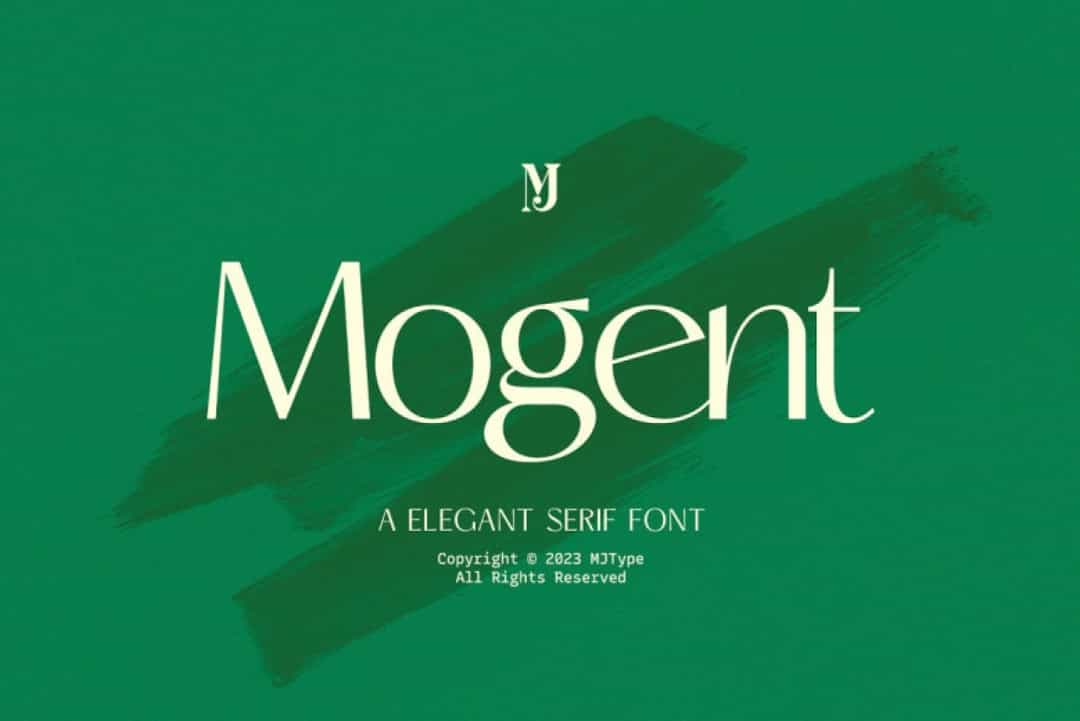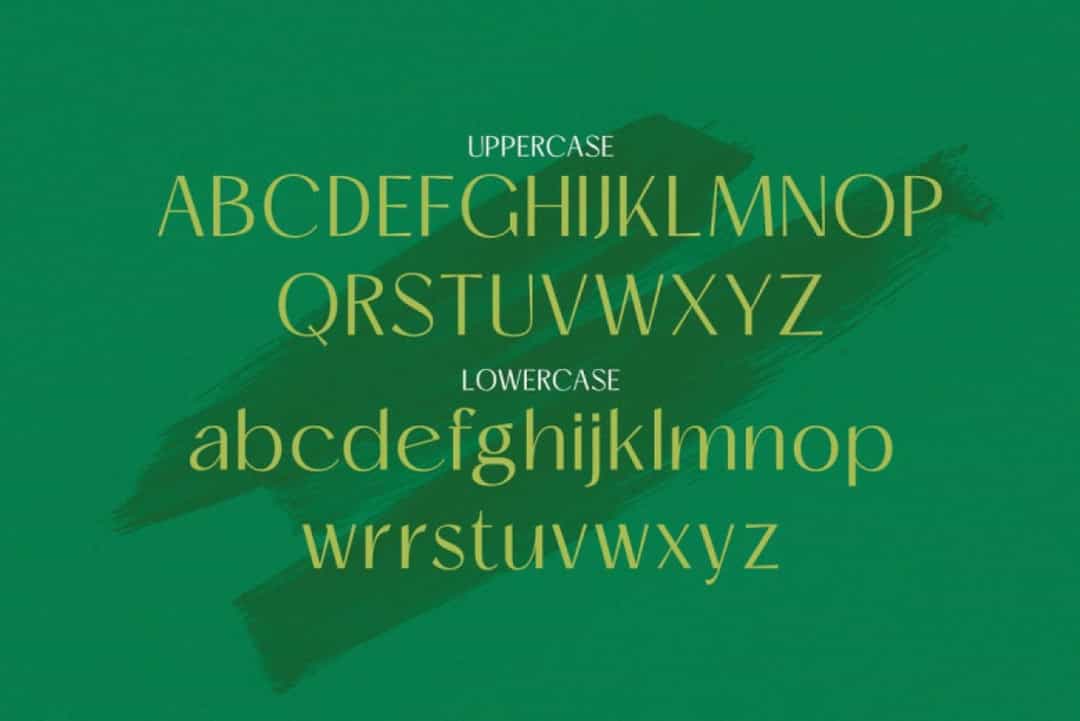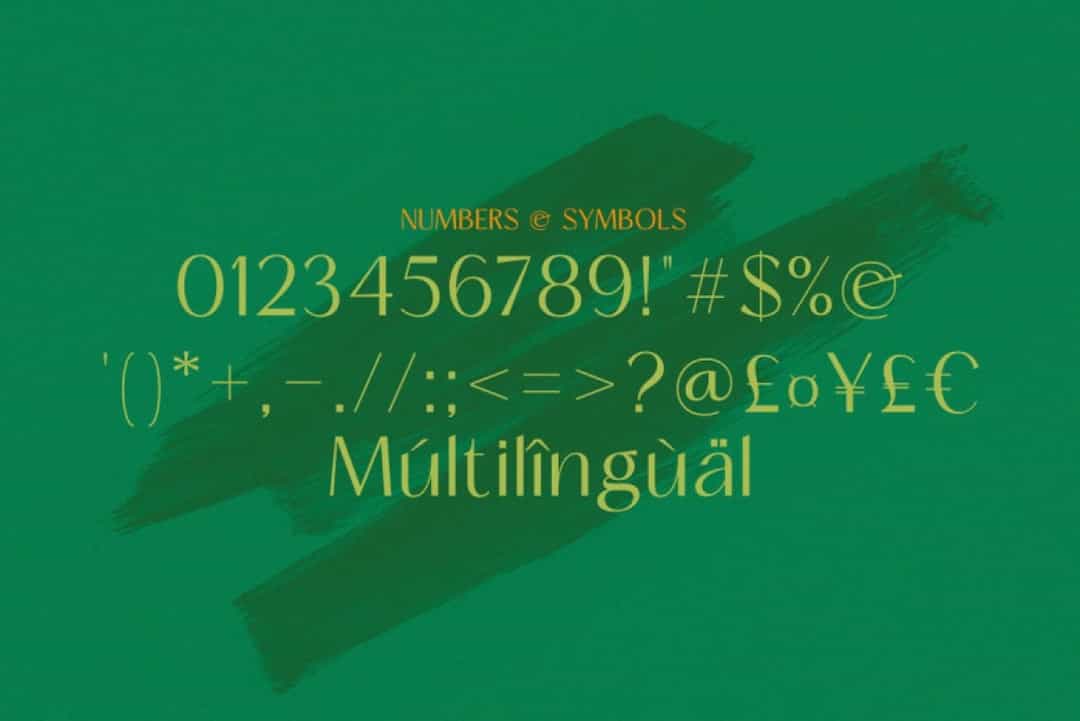
Mogent, an alluring serif typeface with an elegant yet edgy style that fuses classical sophistication with modernity. Its sophisticated font and well-balanced proportions make it the ideal choice for editorial designs, logos and packaging projects. Mogent’s captivating vibes will inspire your style of typography, adding elegance and class to your innovative compositions.